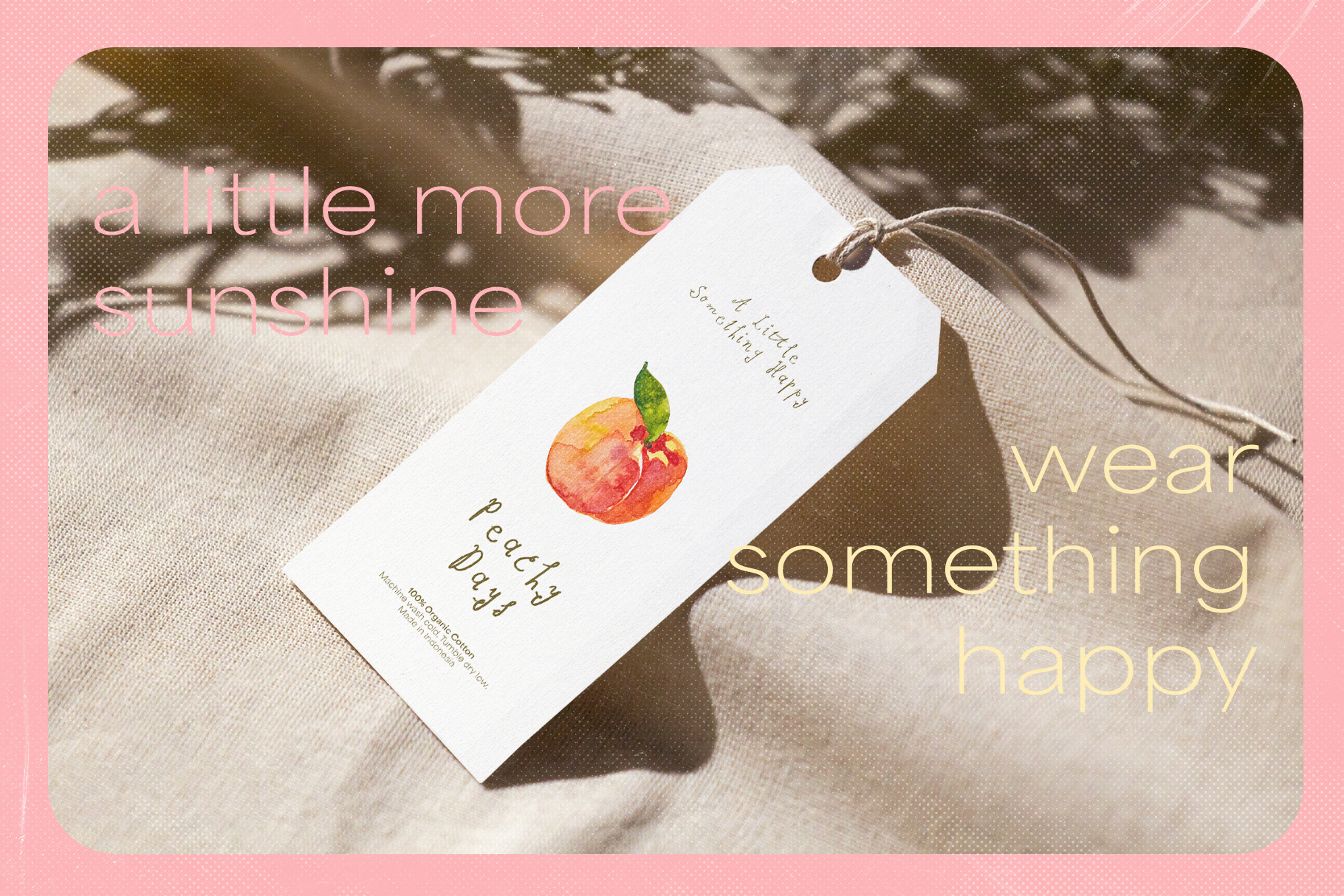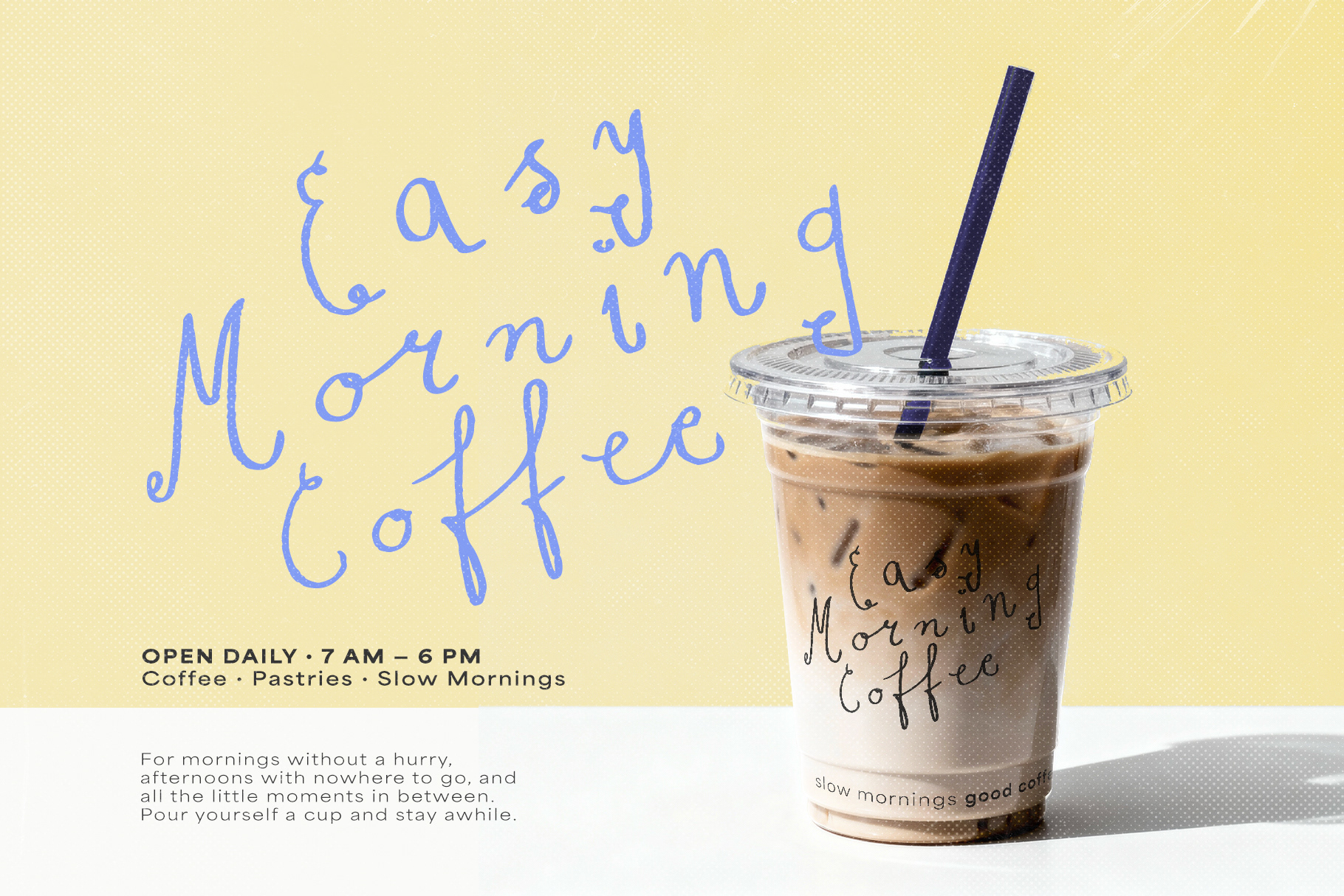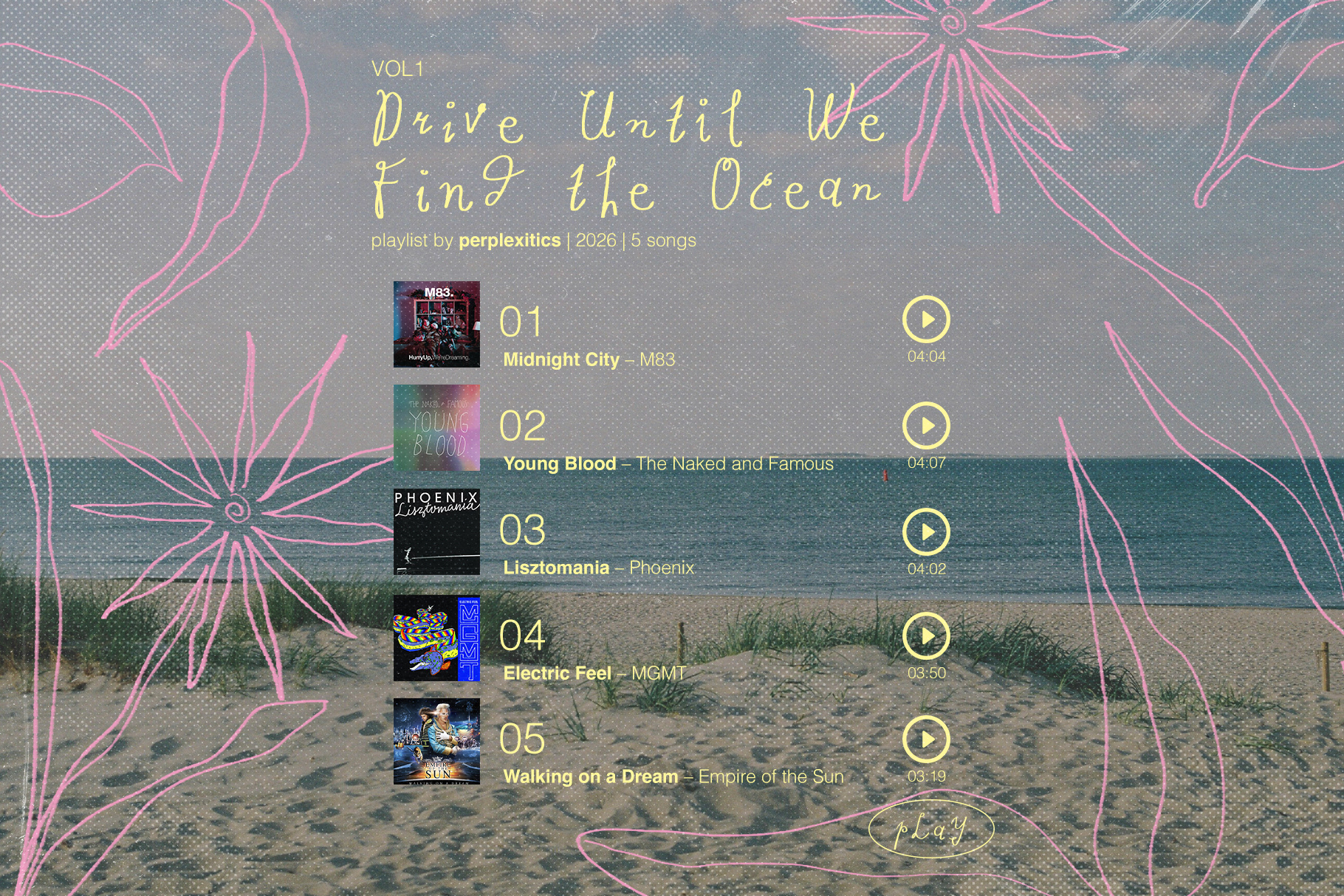
Seafoam Letters Handwritten Font
Seafoam Letters is a handwritten font inspired by salty air, sunny surf days, and little beach escapes. With 3 alternate characters, Seafoam Letters adds a natural, playful touch to travel journals, beach branding, postcards, apparel, and everyday creative projects.
Seafoam Letters Font is packed with everything you need, including uppercase and lowercase letters, numbers, punctuation, and 3 alternates. Multilingual support.